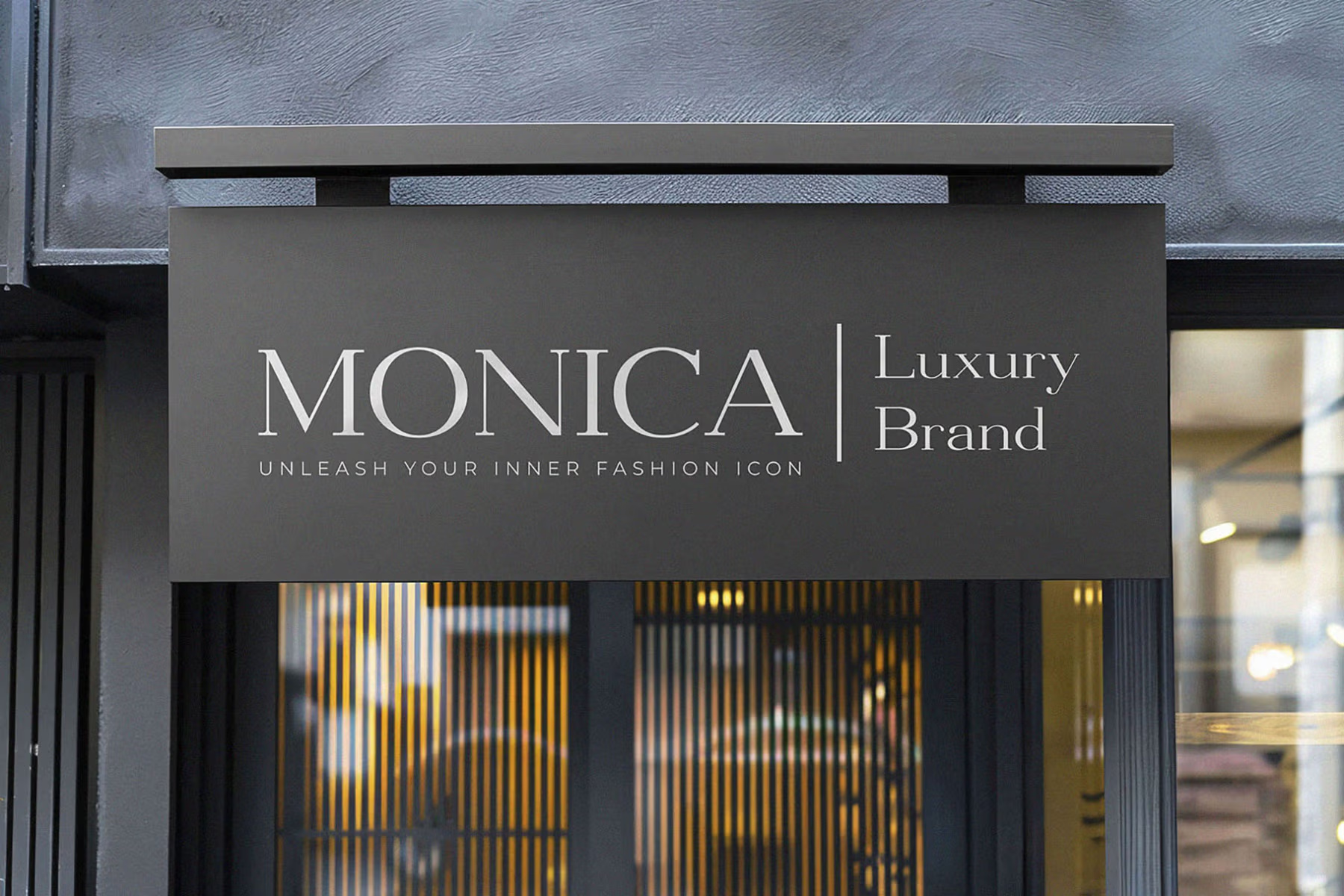
Gabryle is a refined serif from Typeformers. It has fine contrast and a calligraphic touch in letters like the a and y, but it stays clean and modern overall. The Monica Luxury Brand shop sign in the specimen shows it in white on dark grey.
It covers upper and lowercase, numbers and symbols. It is best for headings, logos and short lines rather than long text. Set in capitals with a little extra spacing, as on the Monica sign, it looks calm and upmarket. In mixed case it feels softer and more personal.
Best uses for Gabryle
- Fashion and luxury labels
- Boutique shop signs
- Magazine headings
- Wedding stationery
- Packaging
Pair Gabryle with a light sans. Jost works for small text. Lato keeps body copy simple. For a script accent, try Great Vibes.
Gabryle Serif Font